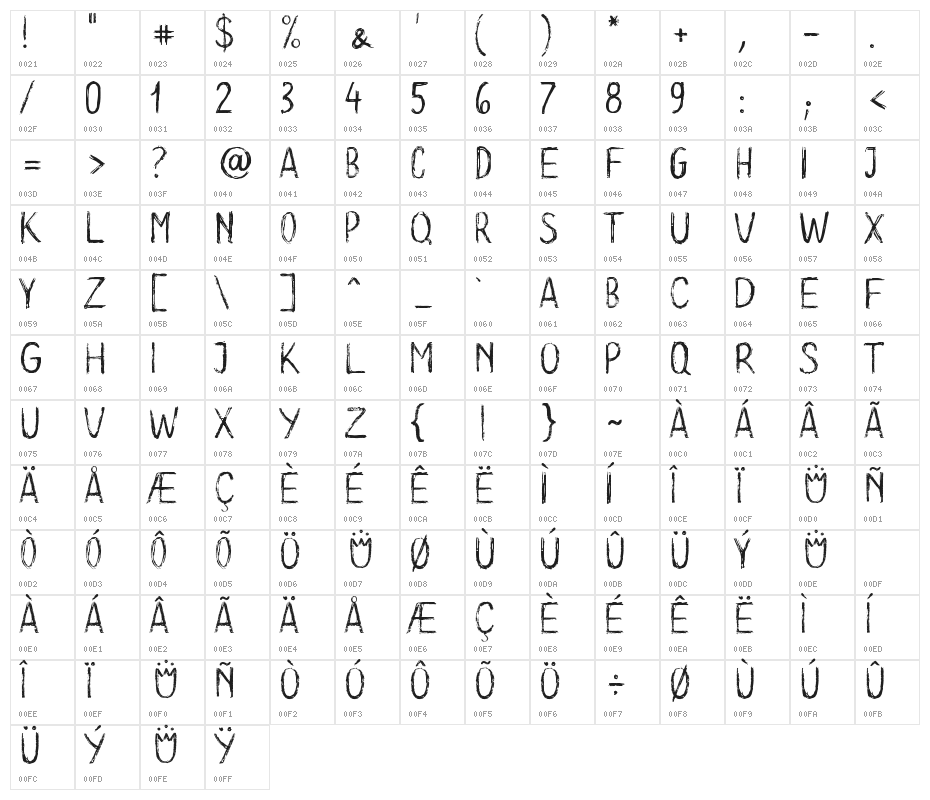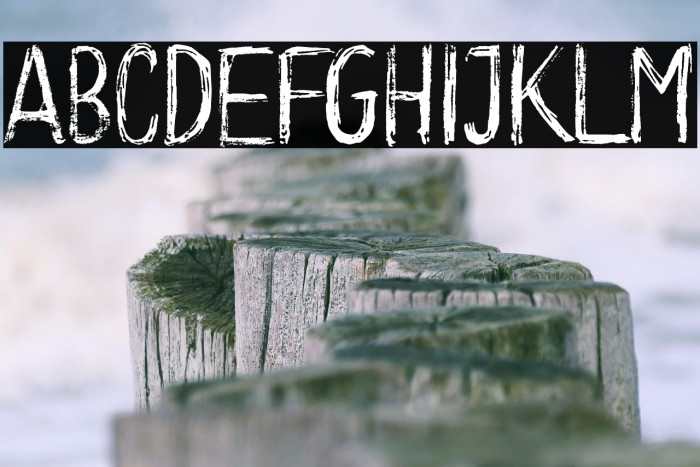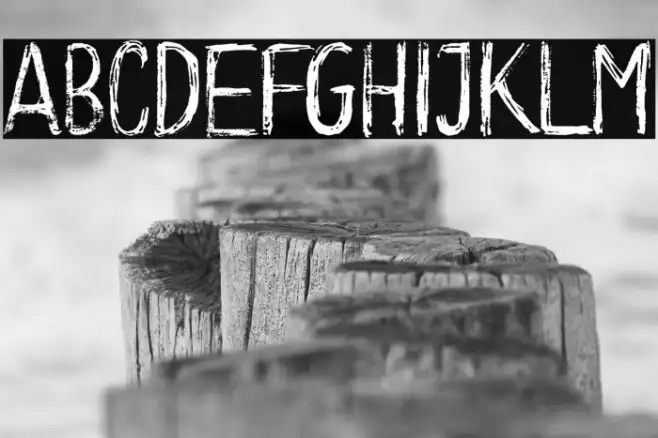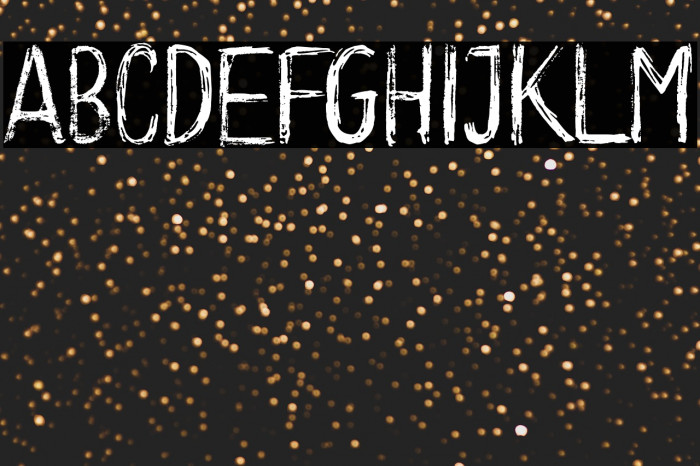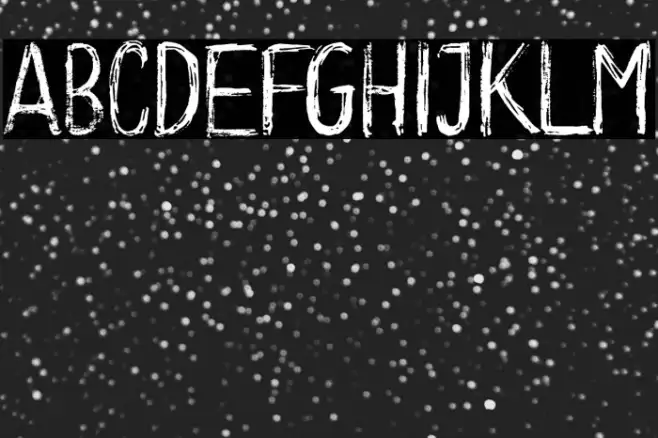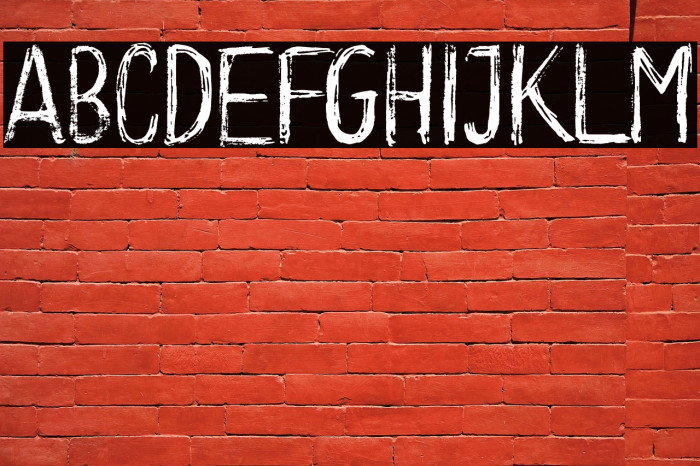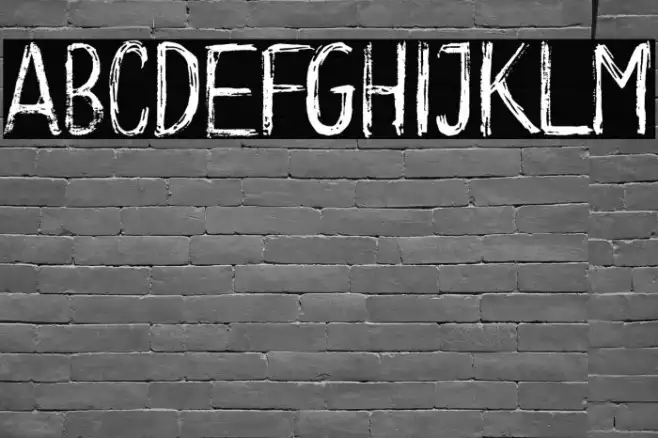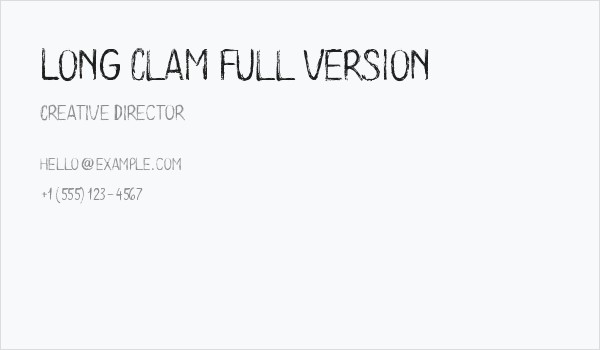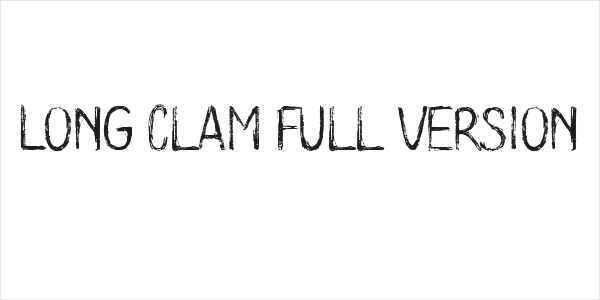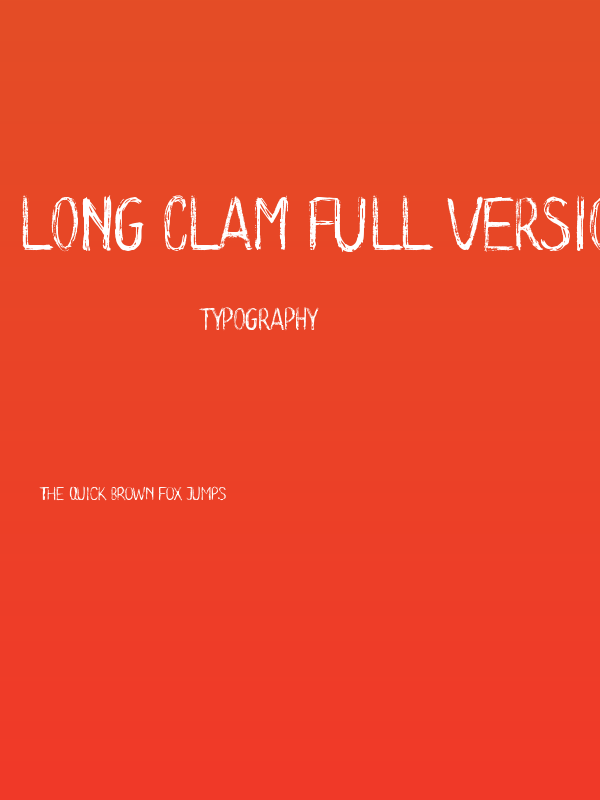
Long Clam Full Version Font
Long Clam Full Version Description
This font features a bold, hand-drawn style with a rough, textured appearance that gives it a raw and artistic feel. The characters are unevenly weighted, adding to the organic and spontaneous look. The uppercase and lowercase letters maintain a consistent style, with jagged edges and a distressed finish that suggests a sense of urgency and dynamism. The numbers and special characters follow the same aesthetic, making the font versatile for creative projects. Its unique style is reminiscent of brush strokes or graffiti, making it ideal for designs that require a bold statement.
Proposed ProjectsIdeal for posters, album covers, street art-inspired designs, and any project needing a bold, artistic touch.